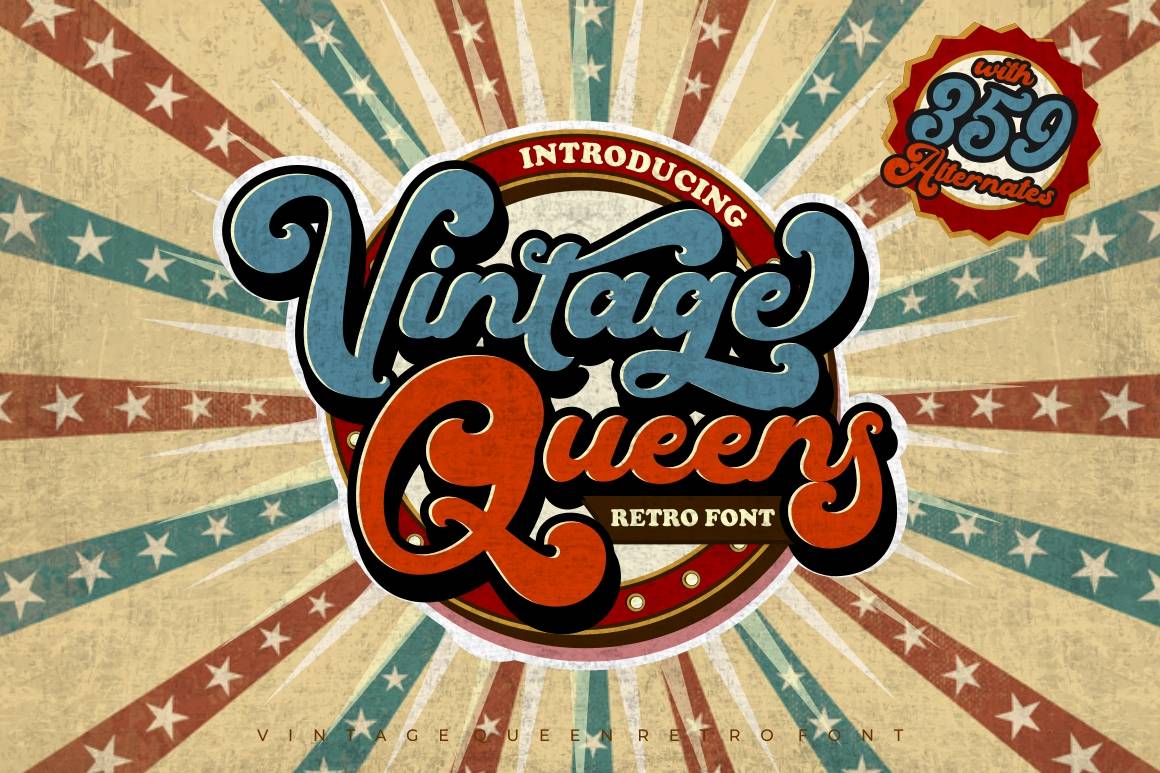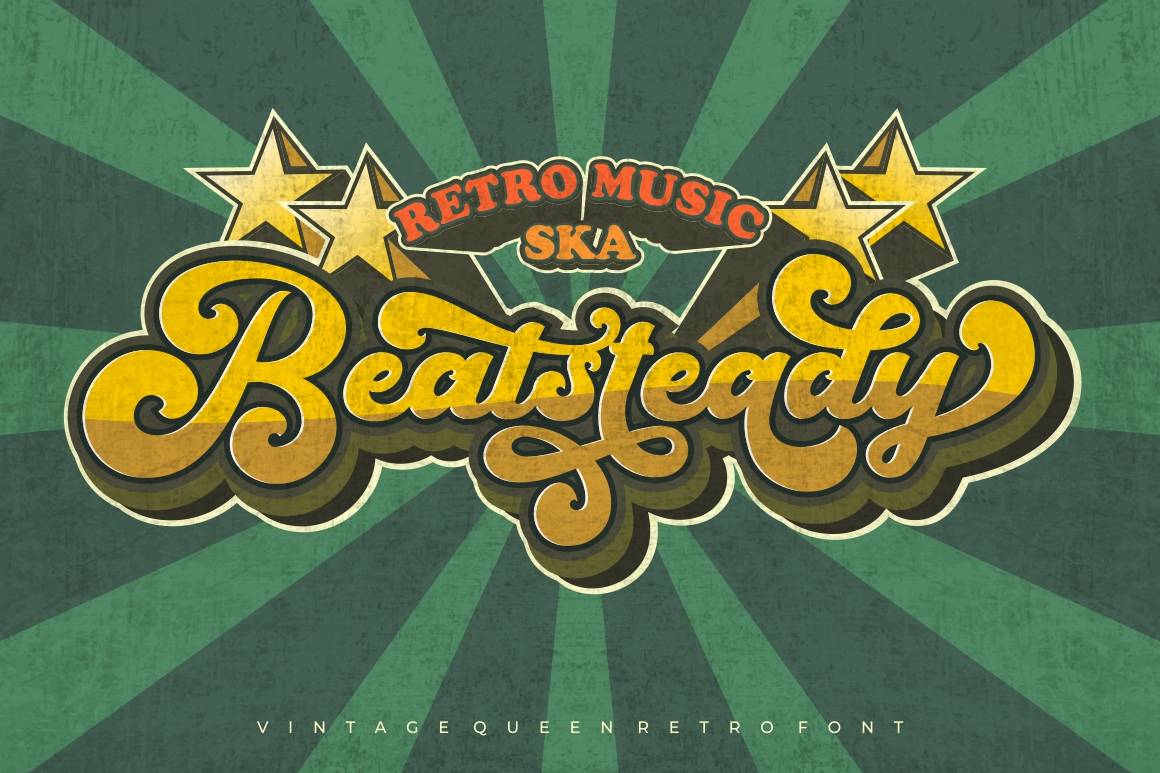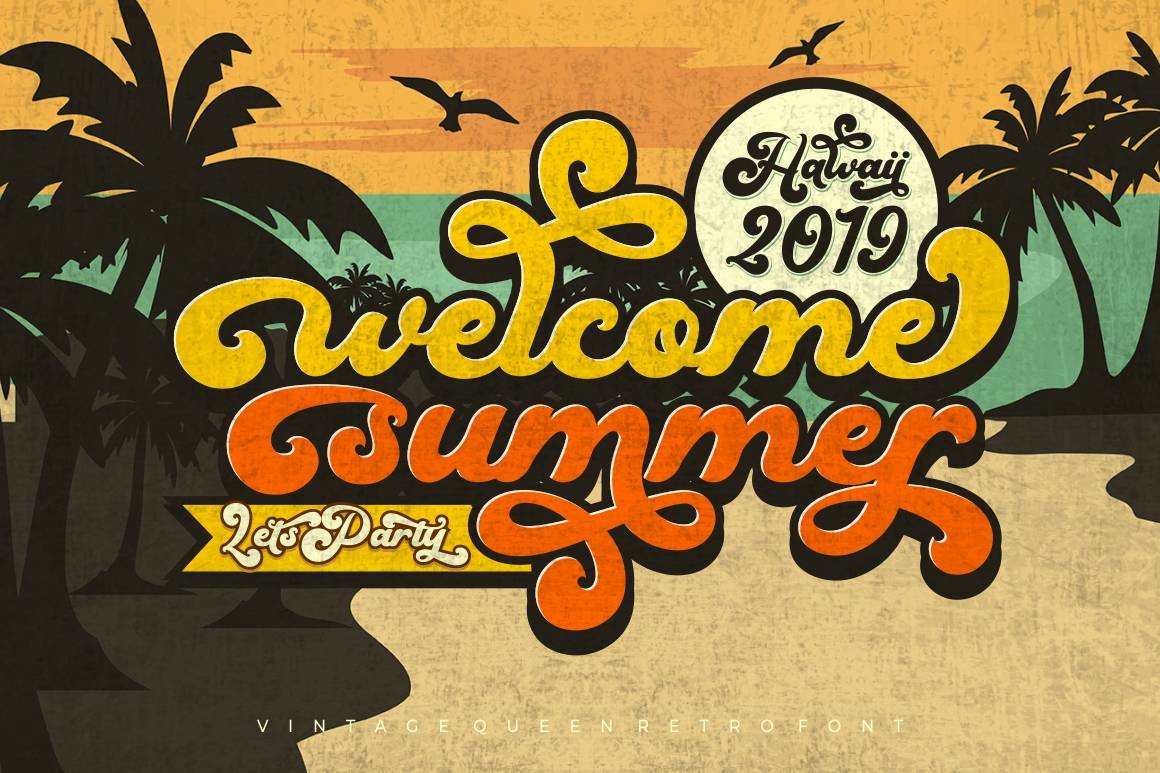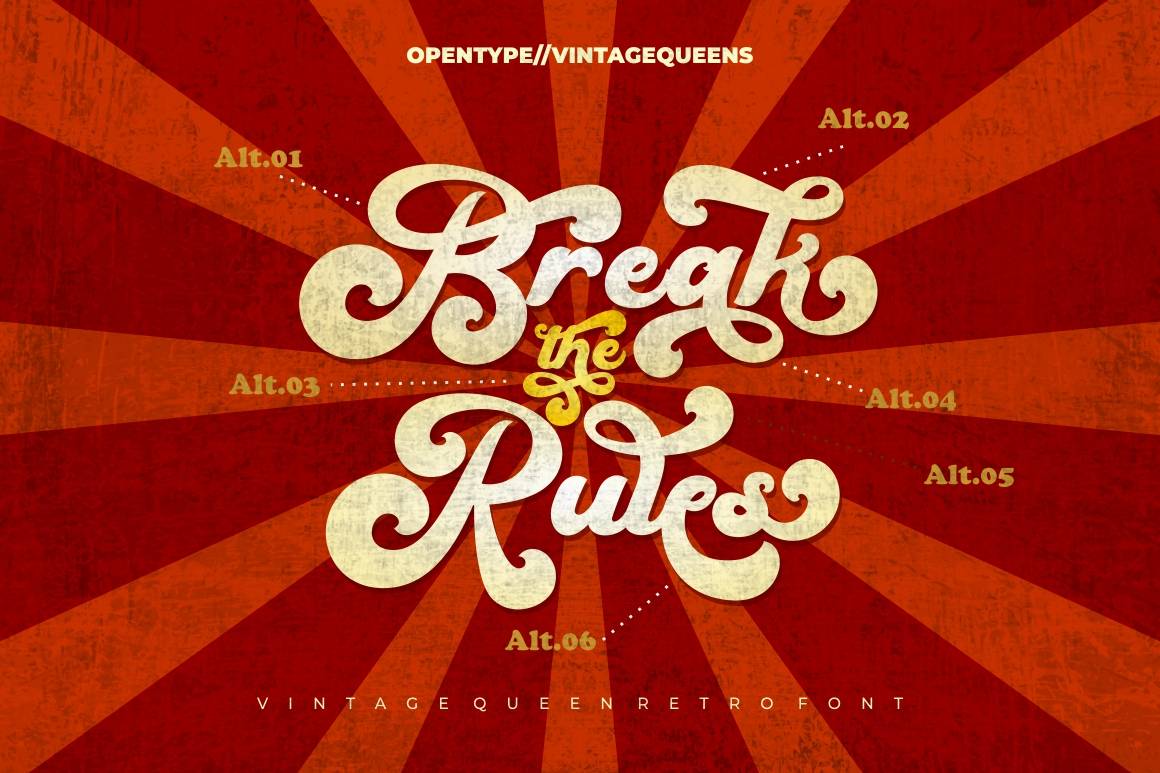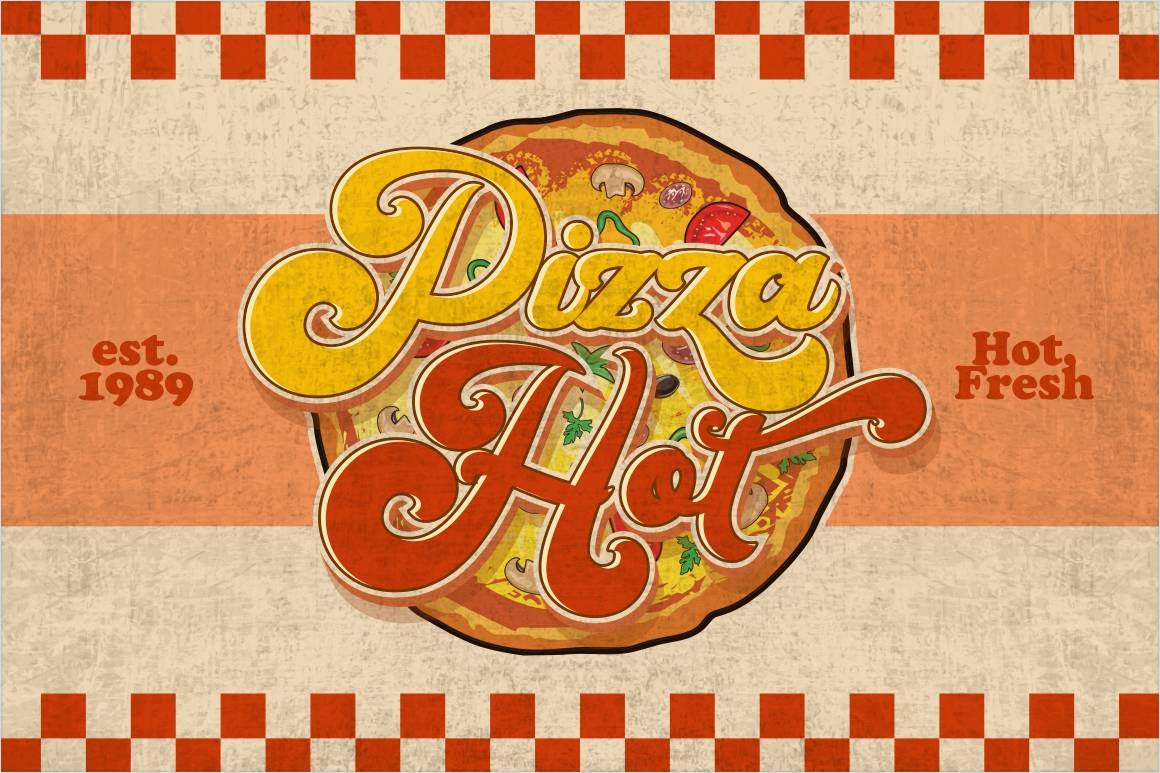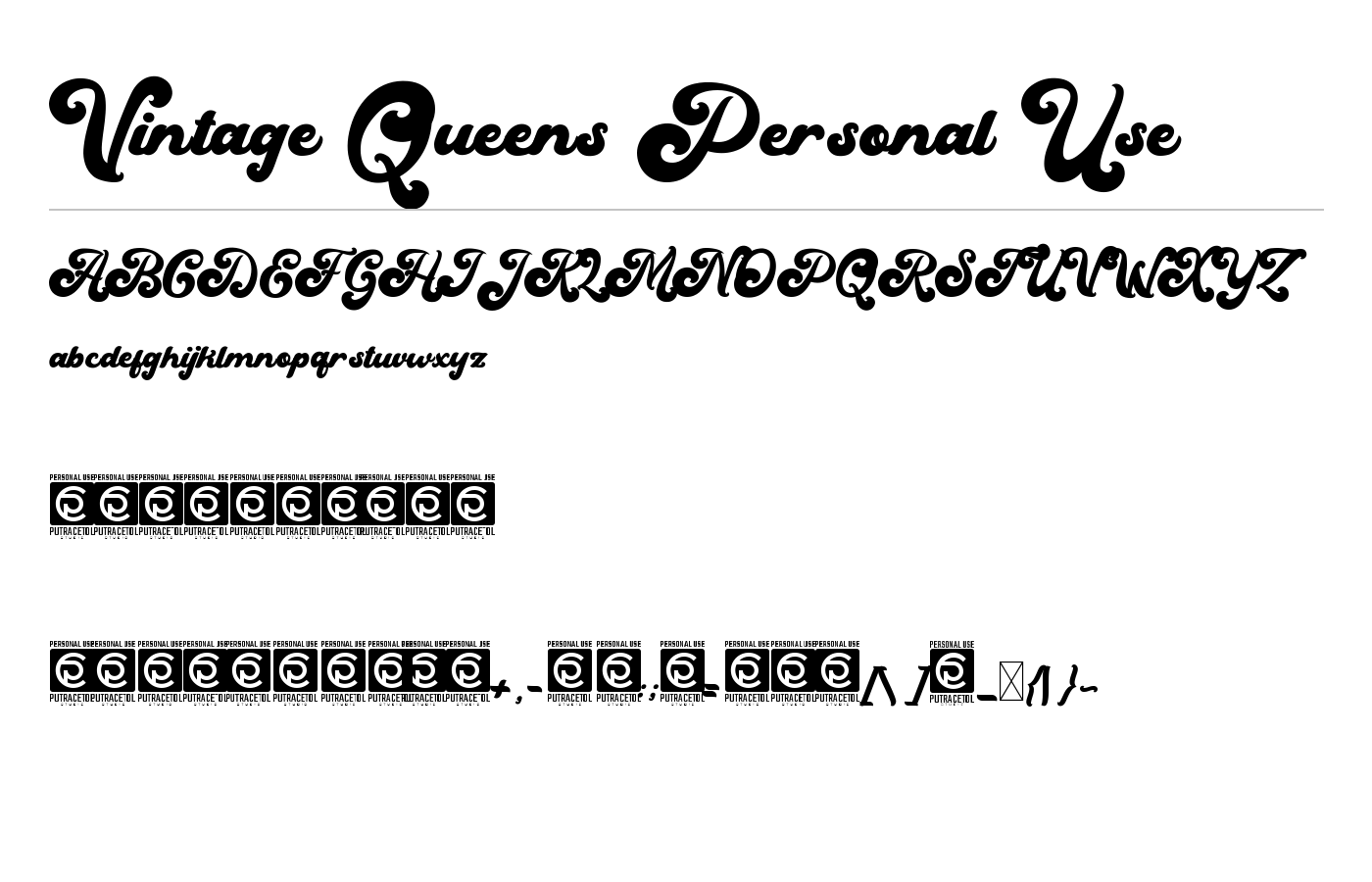
Vintage Queens is a bold, decorative script font with thick, curvy strokes that evoke a playful yet elegant vintage feel. Its high contrast and swirly details make it perfect for eye-catching headlines, logos, and packaging that want to convey charm, nostalgia, and personality. This font shines in creative branding and display use where a stylish, retro vibe is desired.
Vintage Queens Font
About Vintage Queens Font
| Font family | Vintage Queens Font |